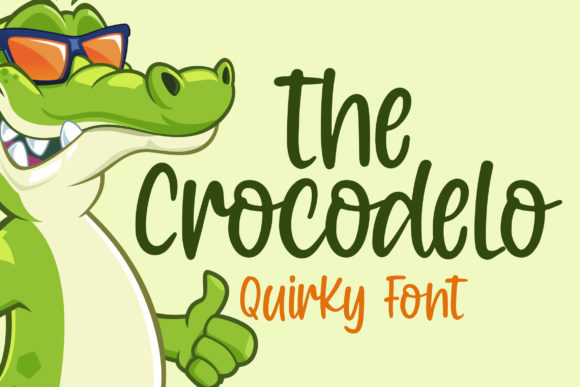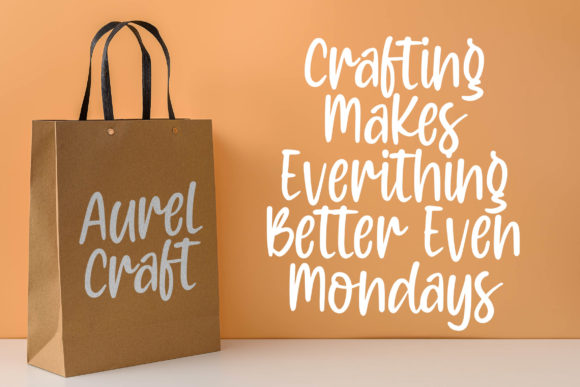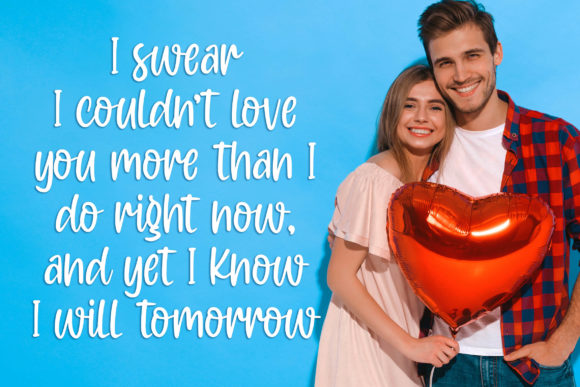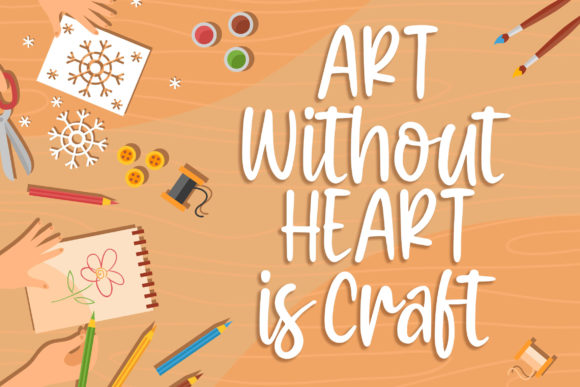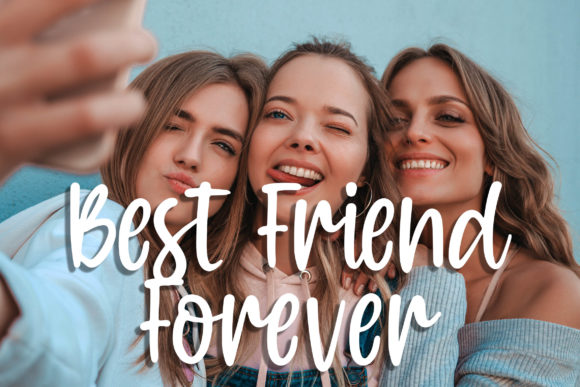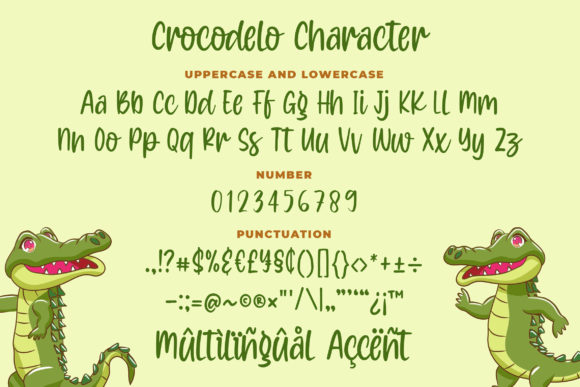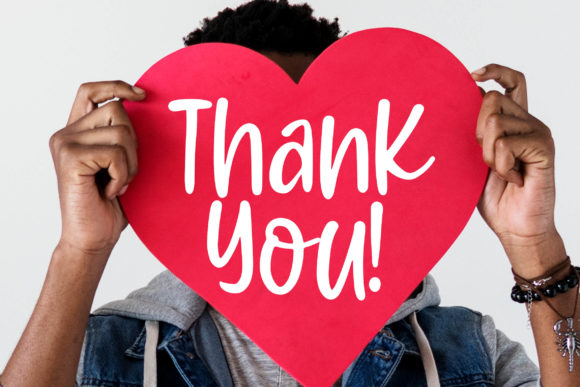
Crocodelo Font
About Crocodelo Font
Crocodelo feels quirky and fun, but also incredibly authentic. Fall in love with its unique charm, and take any design idea to the next level with this playful script!